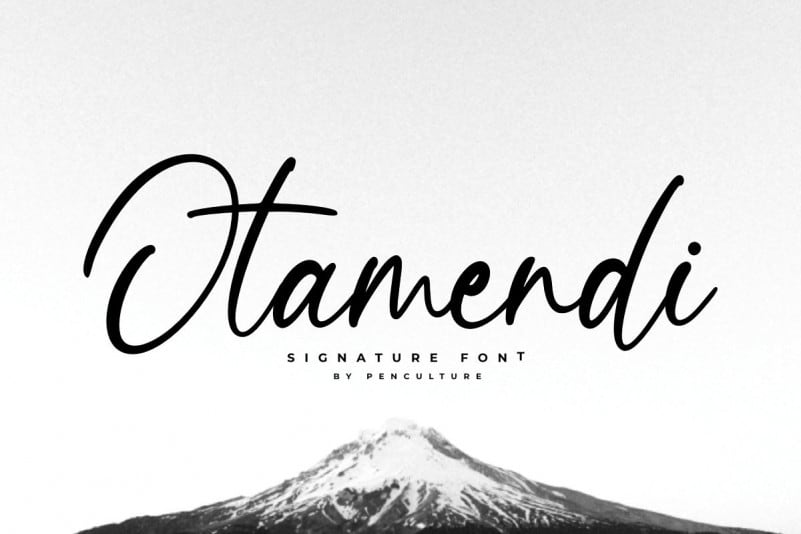
Otamendi Signature Font
Let me introduce my newest font called Otamendi. Otamendi is beautiful handwritten signature font which has a beautiful and natural arch shape, this font is very suitable for various types, such as logos / brands, posters, magazines, Instagram templates, and many more.